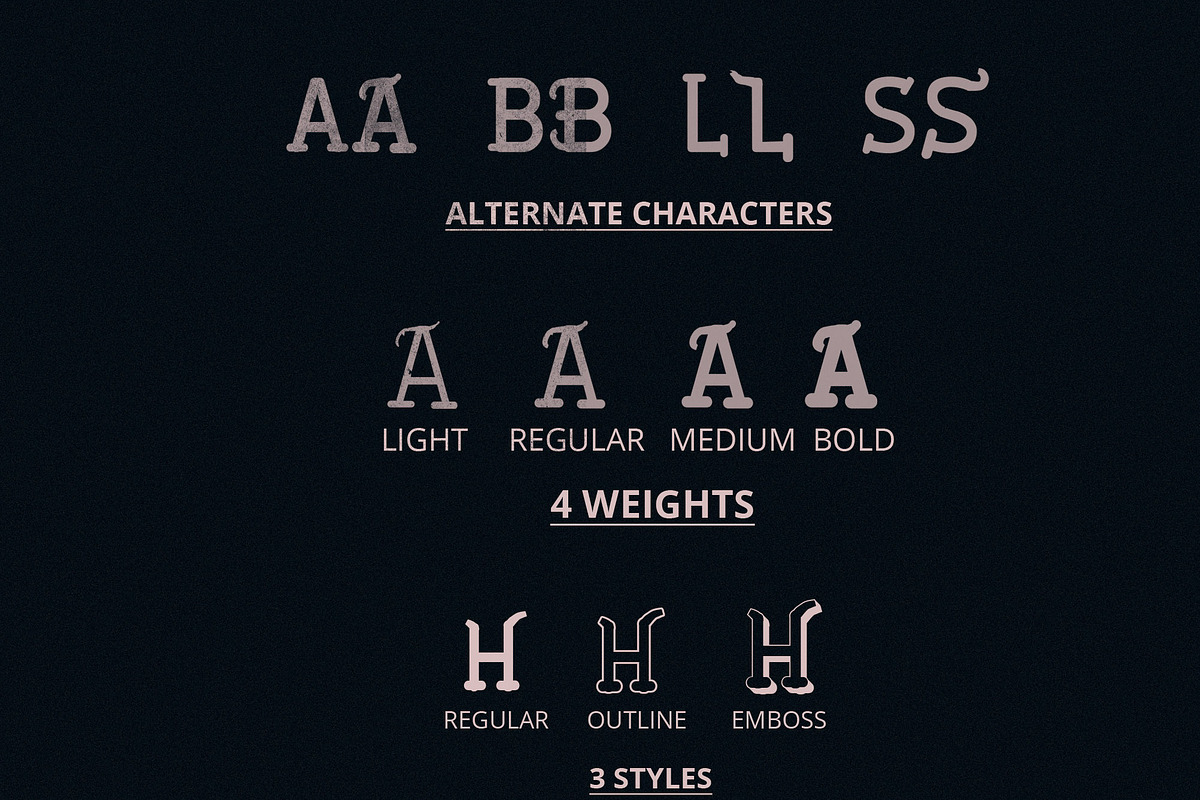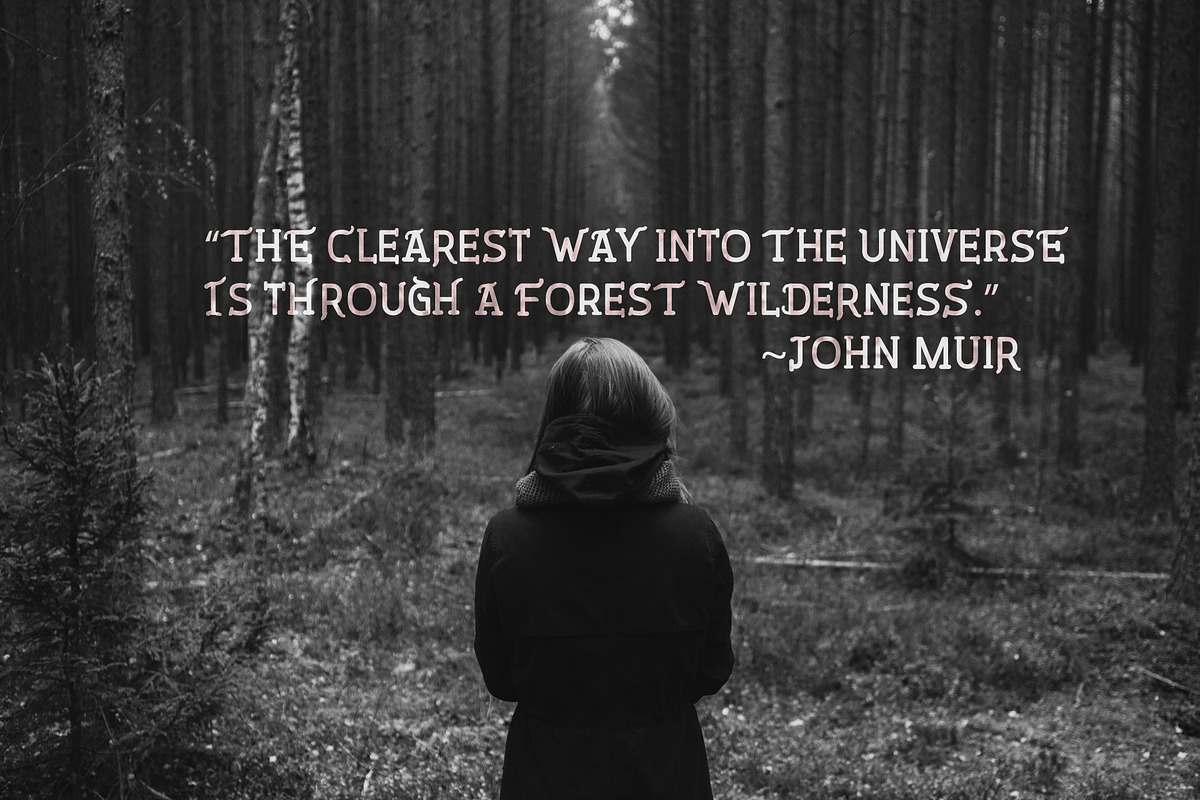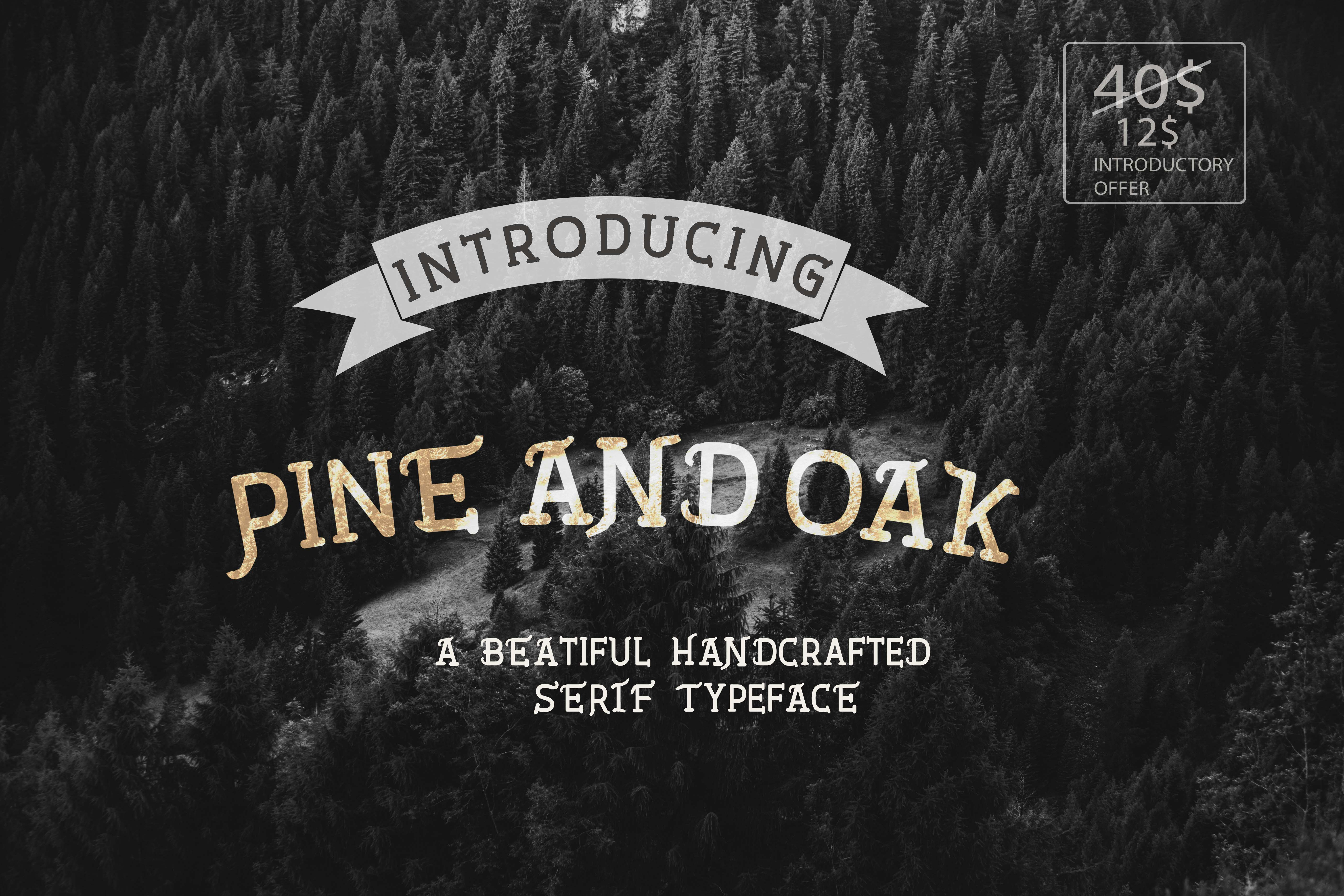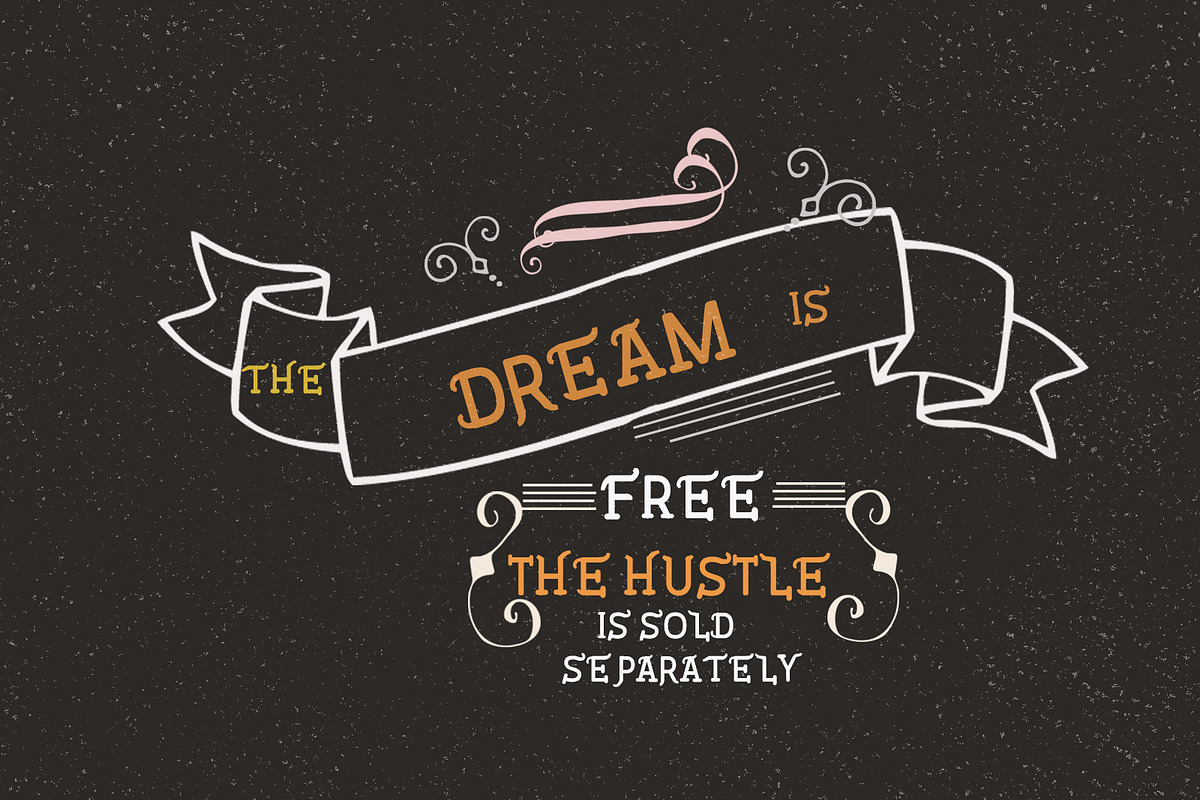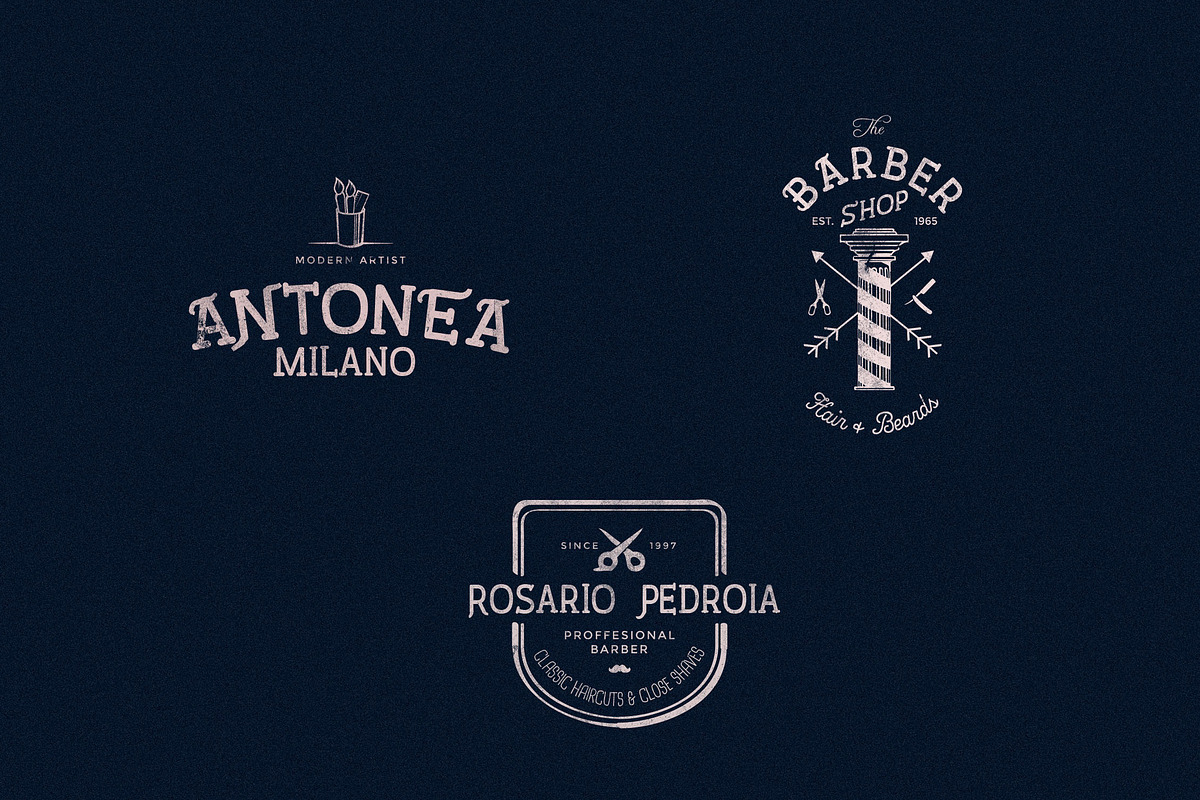
Pine And Oak is a handcrafted all caps serif typeface with the beauty and grace of the wilderness.Whether you are graphic designer or a lettering artist,this typeface is for everyone.You can use it to create beautiful lettering or add elegance to your projects.It is useful for logos,photography,banners,brochures,invitation cards and is a must -have for vintage lovers.The good thing is that the typefaces don't need open type features.You can use it with any software that supports fonts!The lower case letters contain the regular alphabets and the upper case letters contain the alternates.Mix lowecase and uppercase letters to create magic!
LICENSE:Feel free to use it for all of your personal and commercial products. Pine and Oak is a font family consisting of 6 typefaces,that includes: 4 Weights:
- Light
- Medium
- Bold
2 additional styles:
- Outline
- Embossed